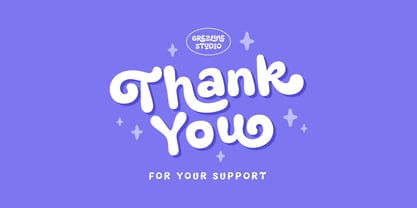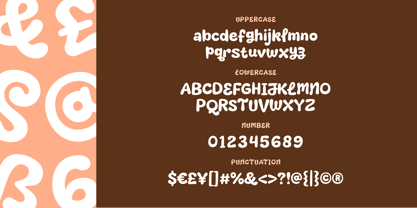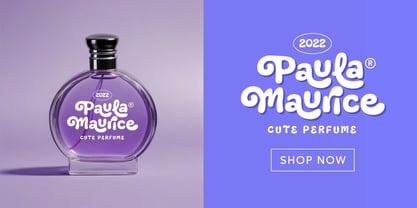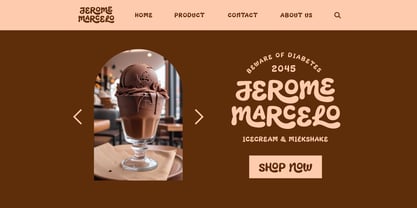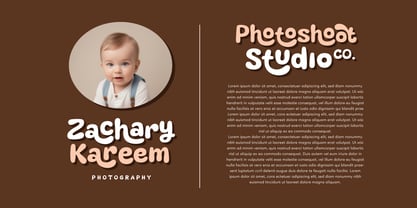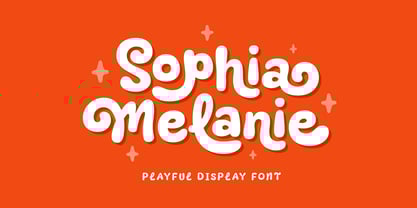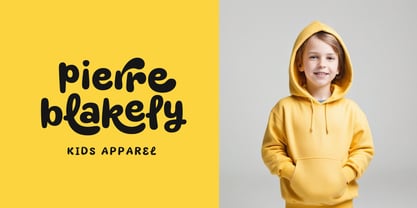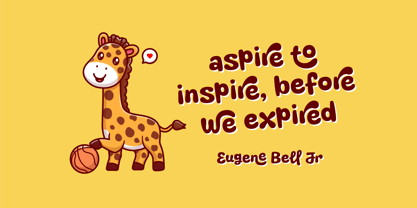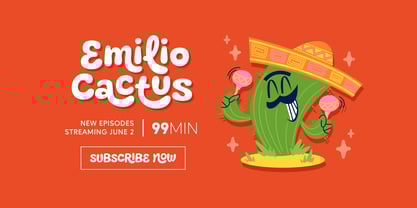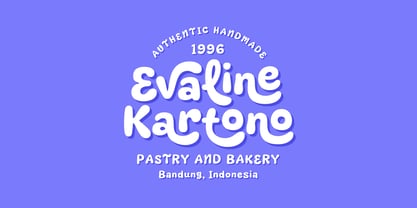
Sophia Melanie
The Sophia Melanie Font Family was designed by Akhmad Reza Fauzi and published by Grezline Studio. Sophia Melanie contains 1 styles. More about this family
Introducing our newest font called Sophia Melanie. Adorable, cute, playful font that adds a sprinkle of joy to every design! Perfect for branding, social media, invitations, or anything that needs a dash of fun. Whether you're crafting sweet quotes, eye-catching logos, or playful packaging, this font is your go-to for instant charm.
Feature :
- Alternate and Ligature
- Multilingual Language